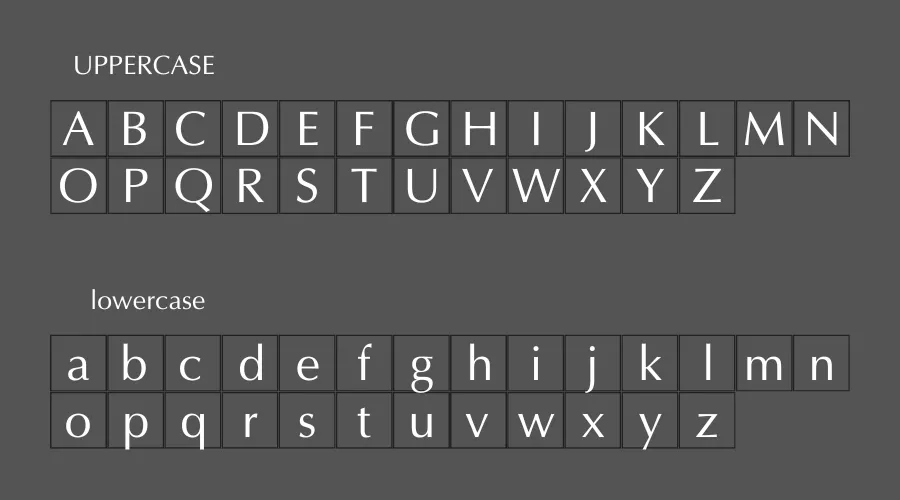
Optimum Font
About Optimum Font
The optimum Font is a famous humanist sans serif texture family and is free and available in both file formats OTF and TTF. It is an elegant texture that was invented by a well-known graphic designer named Harmann Zapf and published in 1058 through Qualitype foundry.
It contains different types of styles and weights such as bold, italics, semi bold, and regular. The online generator tool of the Optimum Font will assets you to transform all your normal type of alphabet sets into stylish and modern shapes.
You may utilize this font for both CSS and adobe Photoshop. After it was published in the font world, it gained popularity in a very short time, because of its clean and straight-line texture look appearance. This unique texture has a high understanding curve, due to its tough design.
It can be utilized with helvetica neue font and make the modern texture. This font is a popular and stylish typeface that can add a touch of elegance to any paper or formatting.